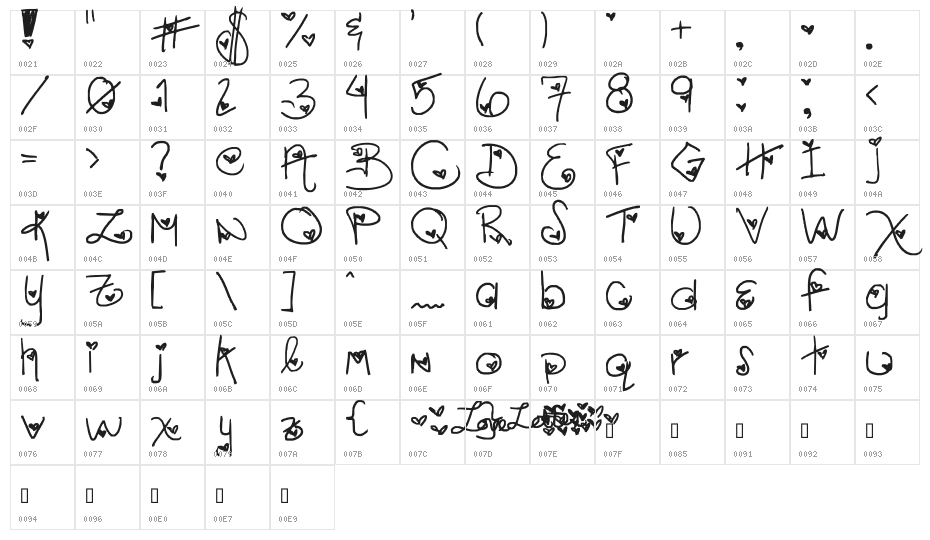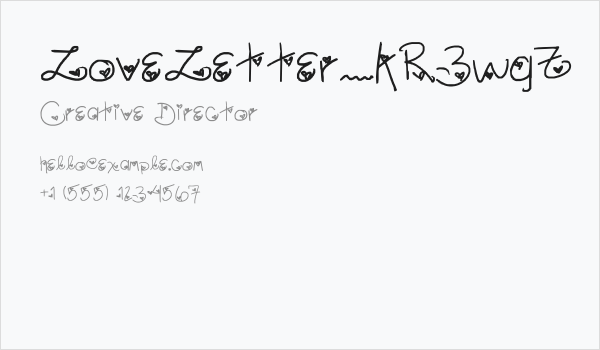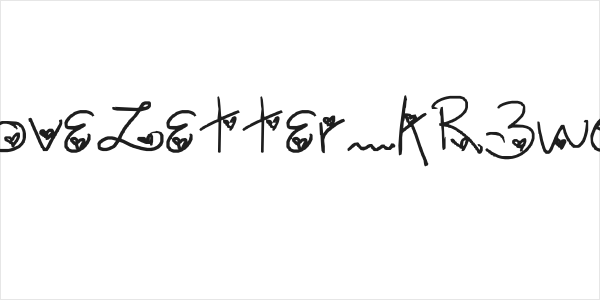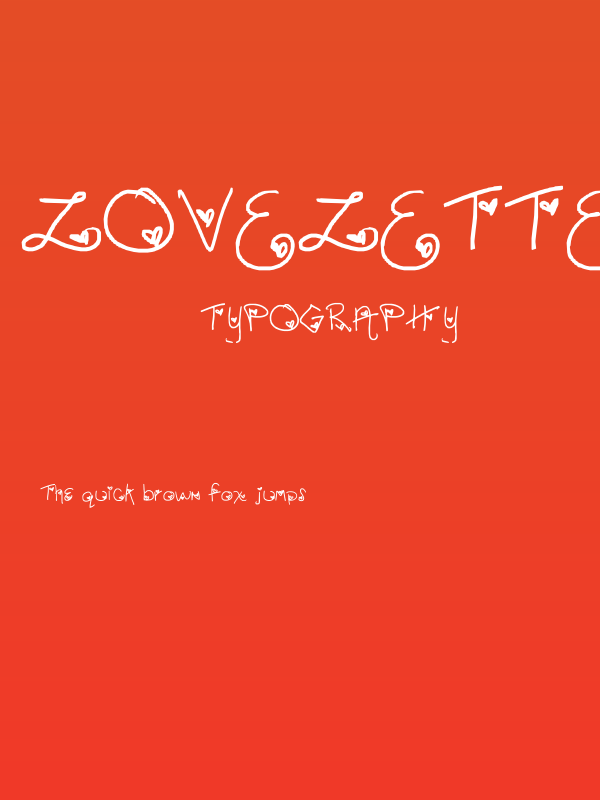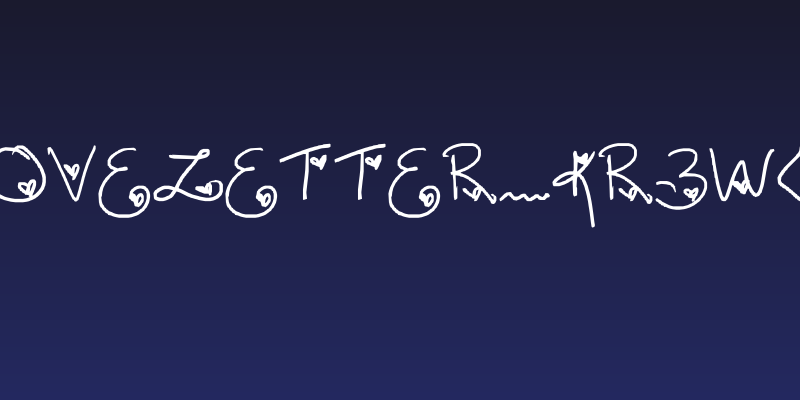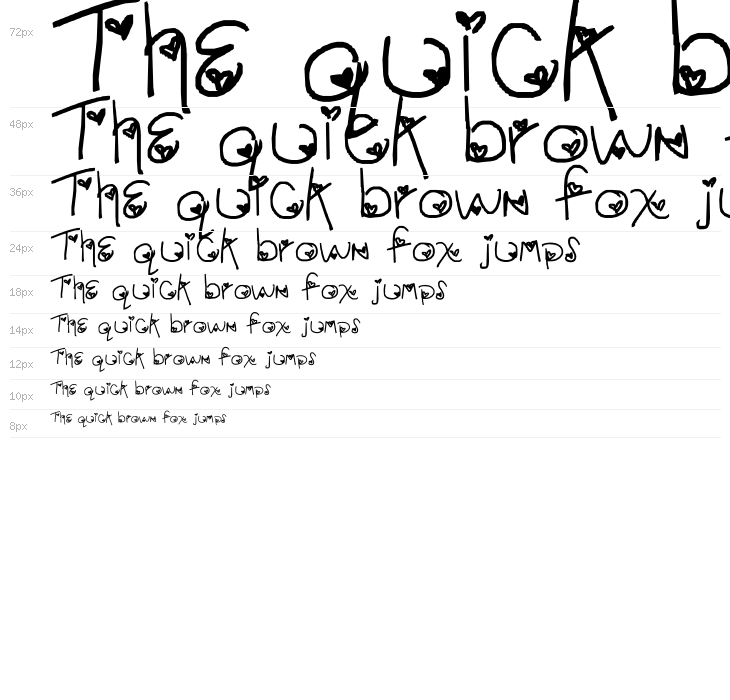
LoveLetter_kR3wgZ Font
LoveLetter_kR3wgZ Description
This font exudes a playful and romantic vibe, characterized by its whimsical, hand-drawn style. Each letter is adorned with heart motifs, adding a charming and affectionate touch. The strokes are uneven and organic, giving it a casual, handwritten appearance. The uppercase and lowercase letters maintain a consistent style, with the heart embellishments creating a cohesive theme throughout. Numbers and special characters are also integrated with the same decorative elements, ensuring uniformity across all glyphs. This font is perfect for projects that aim to convey warmth, love, and creativity.
| Proposed Projects | Ideal for wedding invitations, Valentine's Day cards, love letters, and playful branding projects. |